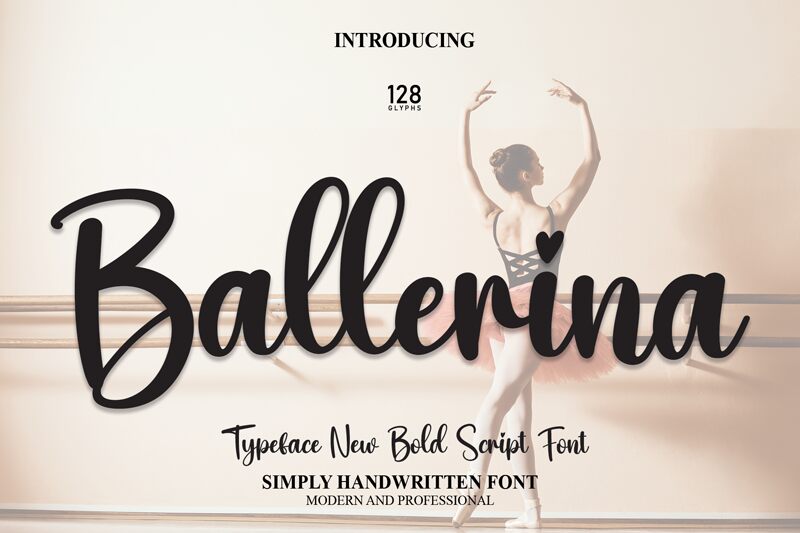
Ballerina
Ballerina, a creation by Scratchones, exudes elegance and charm with its lovely calligraphy style.
The graceful curves and flowing strokes of this font make it perfect for romantic wedding invitations, heartfelt love letters, and delicate feminine branding. Its versatility allows Ballerina to effortlessly enhance beauty blogs, fashion magazines, or even luxury packaging. With its enchanting allure and timeless appeal, Ballerina captivates the reader's eye and adds a touch of sophistication to any project.
Let this font dance across your designs and bring a touch of whimsical beauty to your creations.
The latest style letters are perfect for wall displays, wedding invitations, social media post logos, advertisements, product packaging, product designs, labels, photography, watermarks, invitations, stationery, and any project that requires taste handwriting.